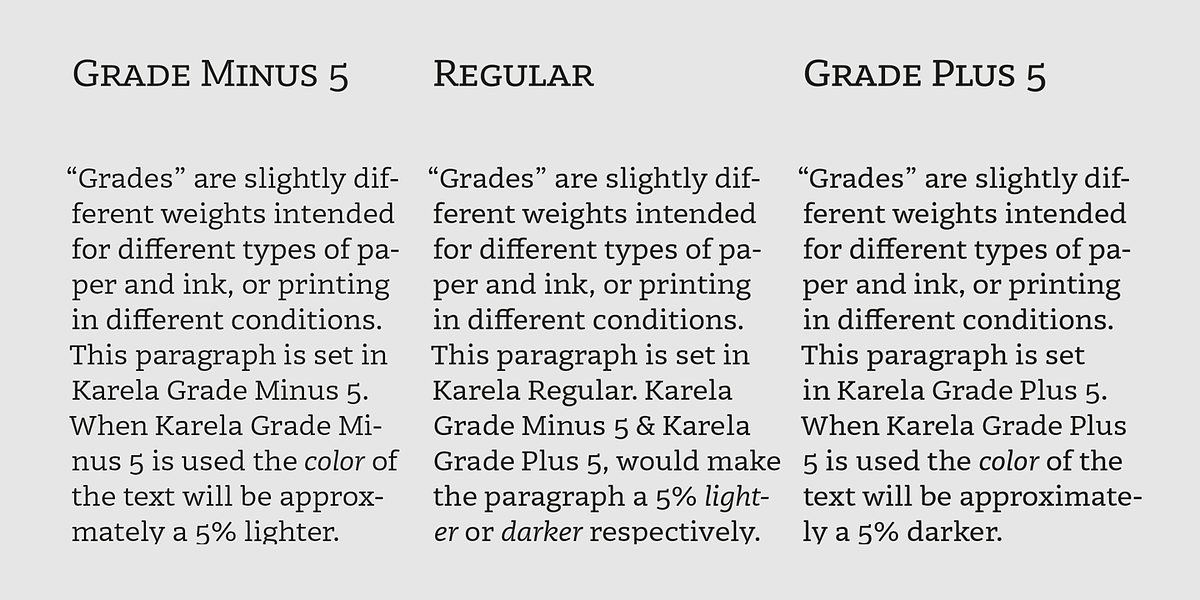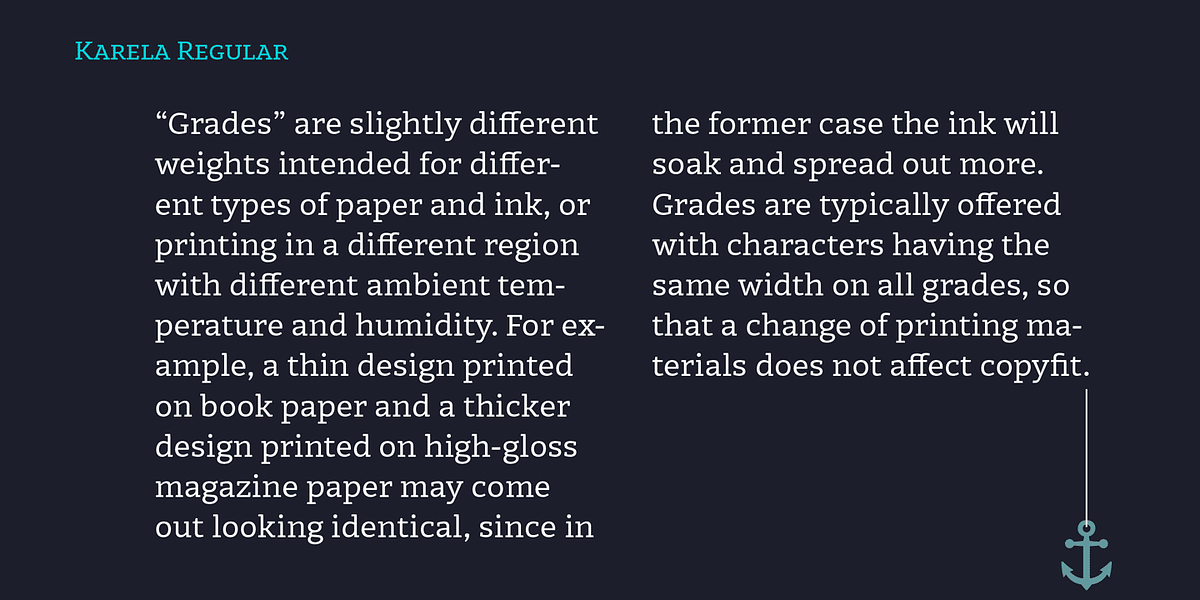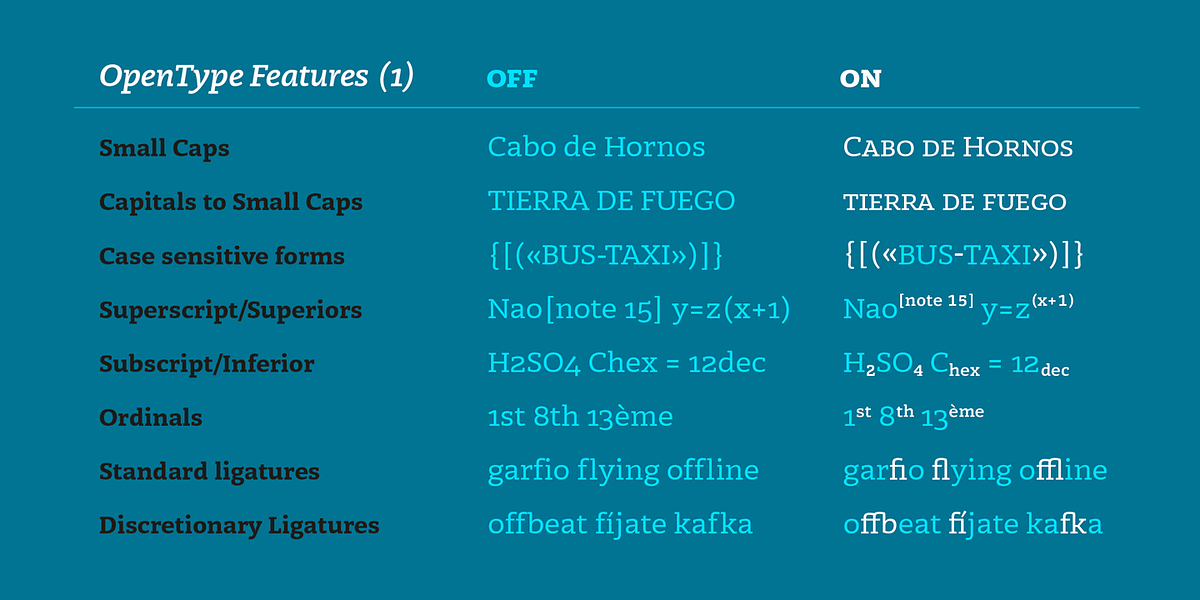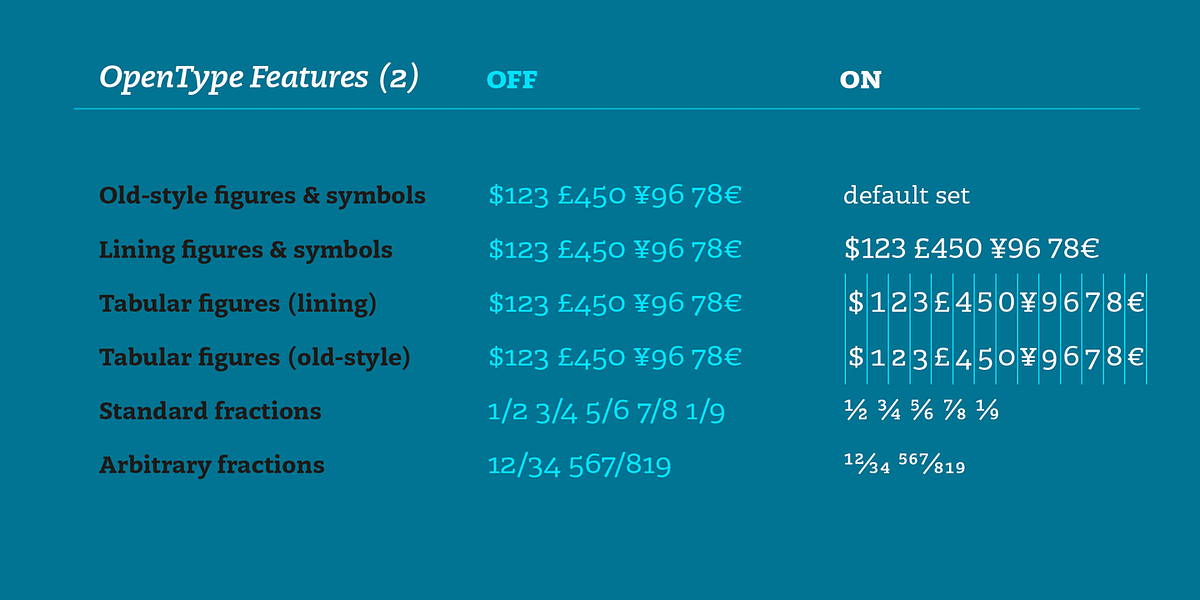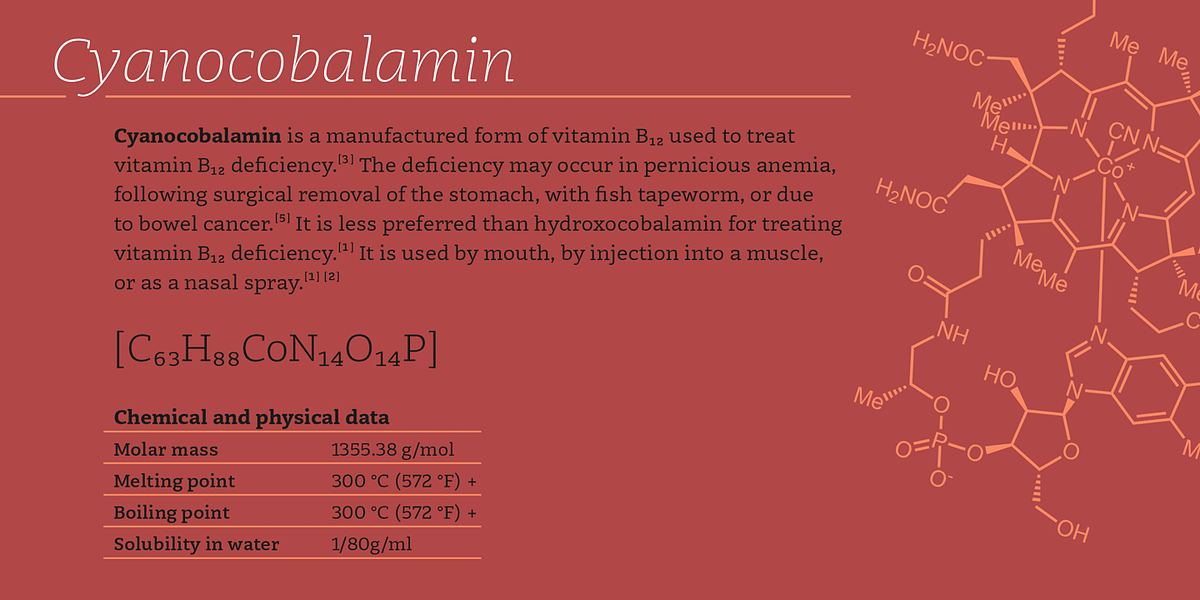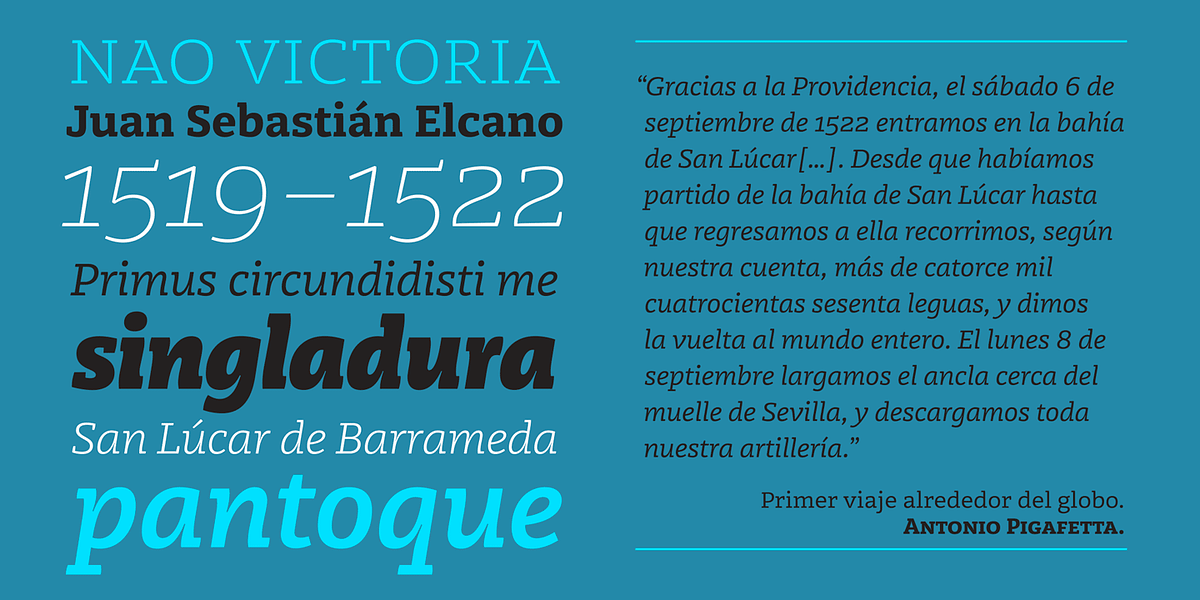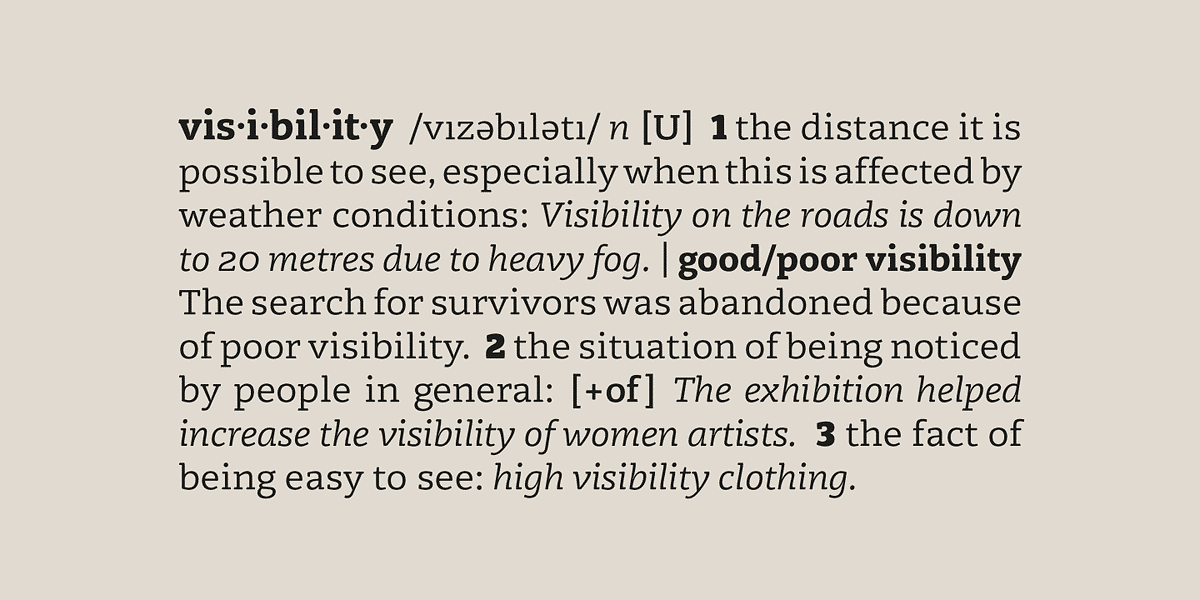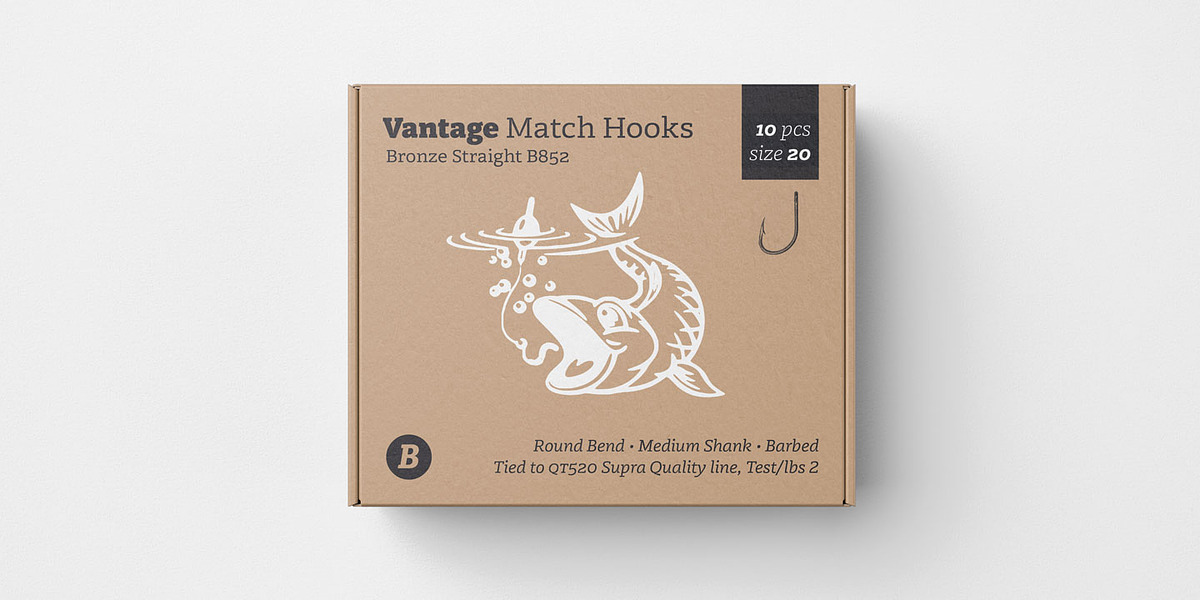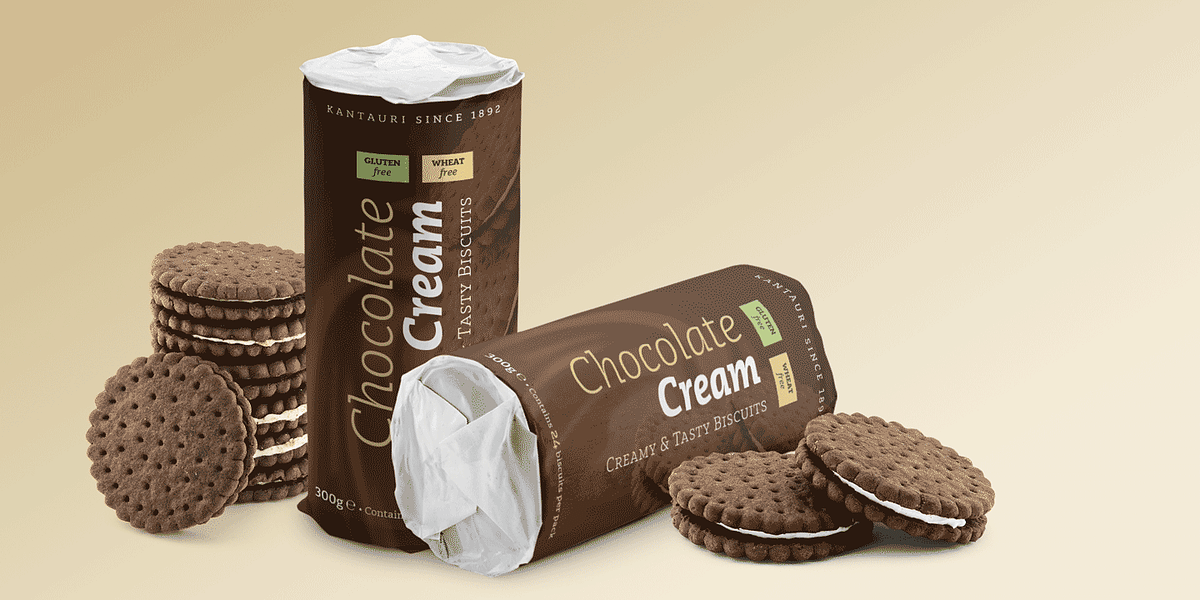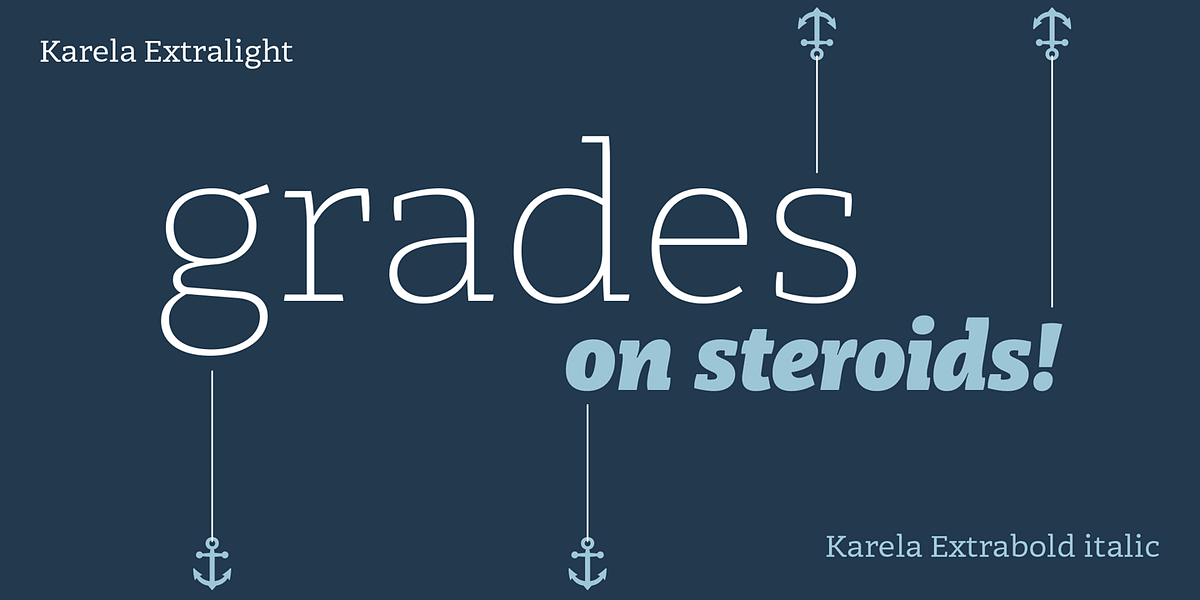
Karela
Karela is a humanist slab serif font designed with both functionality and warmth in mind. Its sturdy structure, inspired by the gunwales of boats, is softened by humanist proportions, slightly curved endings, and rounded serifs. The influence of calligraphy is evident in the curves and counters of letters like 'm', 'n', and 'r', as well as in the italic style. Karela's low contrast and generous x-height make it ideal for editorial use, especially at low resolutions. It also offers a unique feature called 'grades,' which are subtle variations in stroke weight designed to compensate for differences in printing media or display conditions without requiring text reflow.